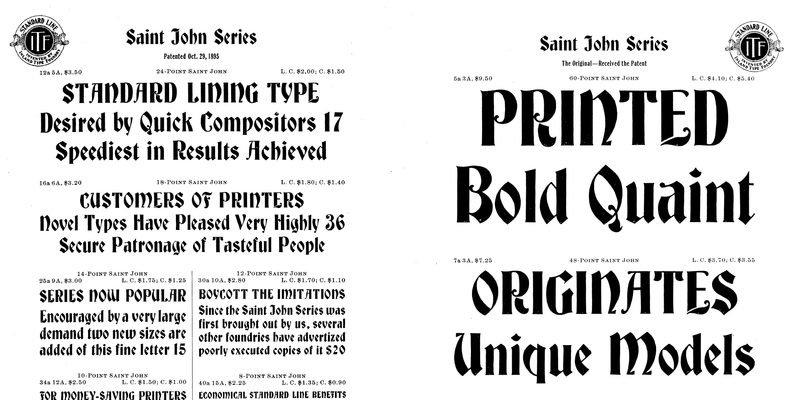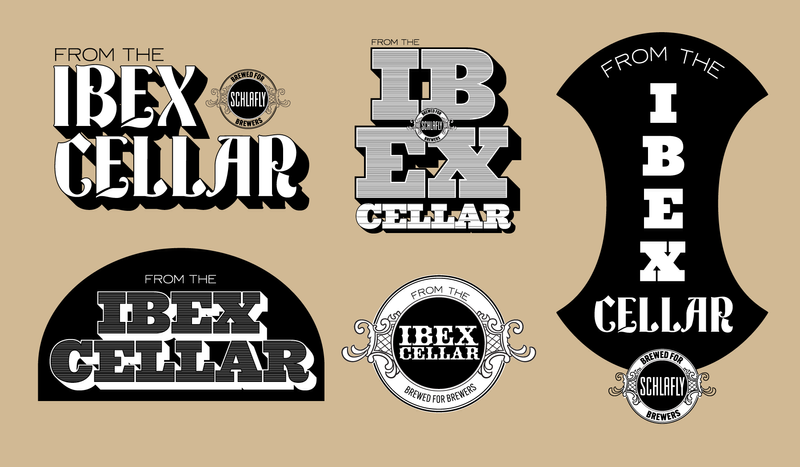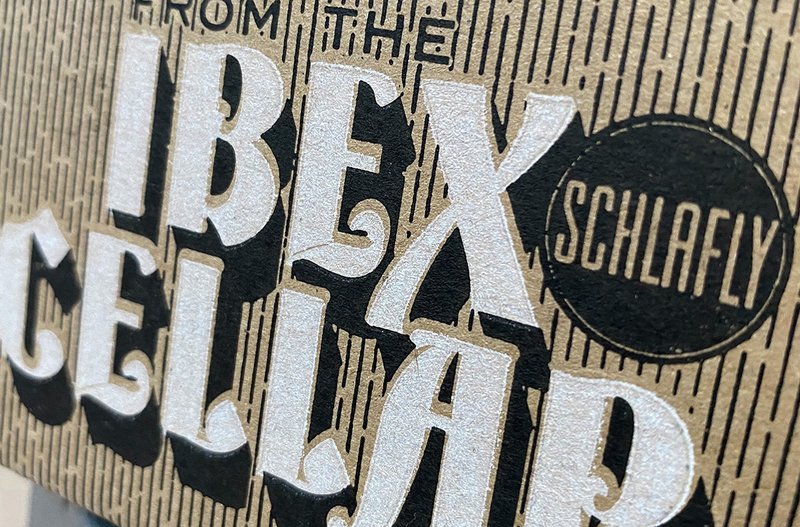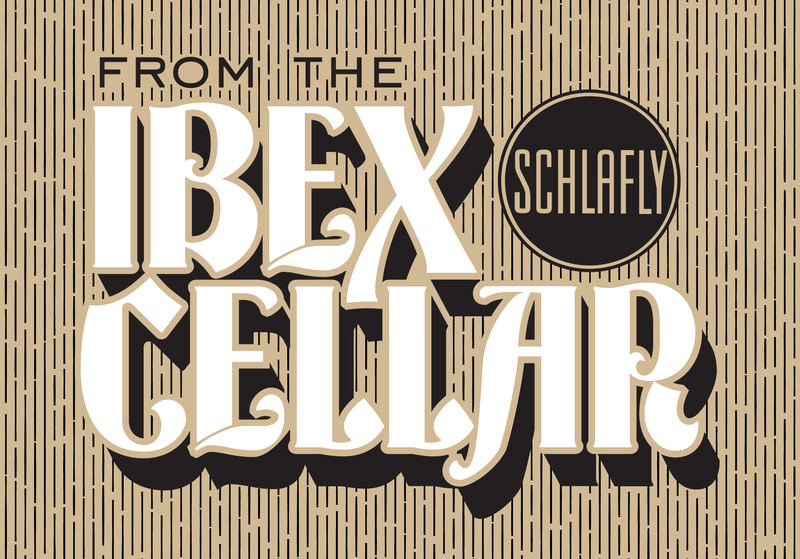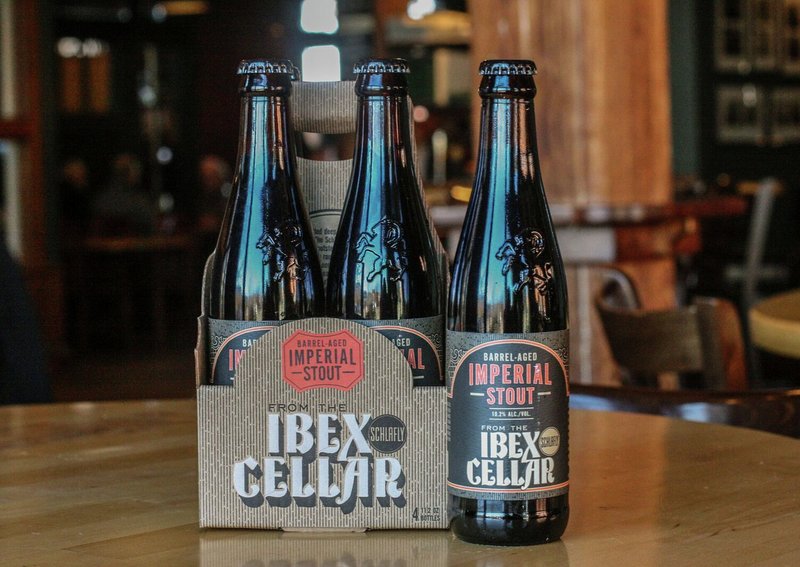
When you think about beer from St. Louis, Missouri, a multinational conglomerate may come to mind—but there is also the original independent craft brewery in town: The Saint Louis Brewery, also known as Schlafly Beer.
Custom lettering for Ibex Cellar
A national landmark building
The John S. Swift Company building on the southwest corner of the intersection of Twenty-First and Locust Streets in Saint Louis, Missouri. Photo: the Sievers Studio, image from the Missouri Historical Society, St. Louis
When the brewery started business in 1991, they purchased a century-old building in St. Louis that had been built and occupied by Swift Printing Company for 65 years. The building was constructed with large steel girders to support heavy printing presses, which just so happened to be perfect for the weight of brewing equipment as well.
XYZ Type brought history to life for the limited-edition Ibex Cellar beers brewed and stored in the cellar of the former printing establishment. Naturally—being a St. Louis resident—Ben Kiel was thrilled to dig into the history of printing and typography in St. Louis.
Working with Ben was a pleasure. The collaboration was synergistic, and the result has worked well across multiple printing processes.
Images: The Saint John Series, 1901 Inland Type Foundry catalog
Searching for the right inspiration
Working with Sarah Frost, the senior designer, Ben created several typographic options for the Ibex Cellar logotype that had connections to printing history and St. Louis. Two concepts leaned heavily on unique wood type specimens and a third was based on an original typeface released by St. Louis’s Inland Type Foundry: Saint John.
The Inland monogram advertising their Standard Line type was too good not to try and work into the logotype. Interpreting the design digitally, Ben tried several options incorporating the decorative border in digital form. Sadly, it wasn’t chosen, but that doesn’t mean he didn’t have fun making it.
Unused logotype options
The Saint John Series
Inland released Saint John, a typeface designed as an interpretation of Will Bradley’s Art Nouveau-inspired lettering, in 1895. During this time, there was an explosion of experimentation with advertising typography, and this typeface—with its connections to the Arts and Crafts Movement and the designer William Morris—appears to have been a popular hit for Inland.
In retrospect, the selection of Saint John almost feels obvious: its blackletter style matches the dark, barrel-aged beers that are stored in the cellar of the building. The in-house design team felt the combination of a unique St. Louis typeface that had not been digitized and the direct connection to printing was a perfect fit.
Ben brought an extensive knowledge of period typefaces to the project and was able to merge this sensibility with a modern twist to create a unique mark.
The lockup with pattern
Printed packaging
A flexible package system with a unique design
To help finalize the logotype and packaging, Ben created a “wood-grainy” pattern for the background and custom lettering for the phrase “FROM THE,” based on a simple, wide geometric sans serif typeface also from Inland. Together, these elements add up to a limited-edition beer packaging system that the brewery can use over time as new beers are released. The fact that the logotype is directly rooted in St. Louis printing and typographic history reinforces both the pride the company puts into its beers and Ben’s pride in St. Louis type.
Footnotes
Founded in 1894 by three brothers after the sale of the Central Type Foundry by their father, Inland was one of the most successful type foundries in the United States. They provided high-quality metal type to St. Louis and much of the Midwest—eventually setting up offices in Chicago and New York City.
Inland heavily advertised their “Standard Line” type, which meant that all of their type was measured by the point system and had a consistent baseline for the same body size. This standardization was state-of-the-art at the time and eventually became standard for all type foundries in the United States. To advertise this fact, they used a monogram of their initials surrounded by decoration on every page of their 1897 specimen book.